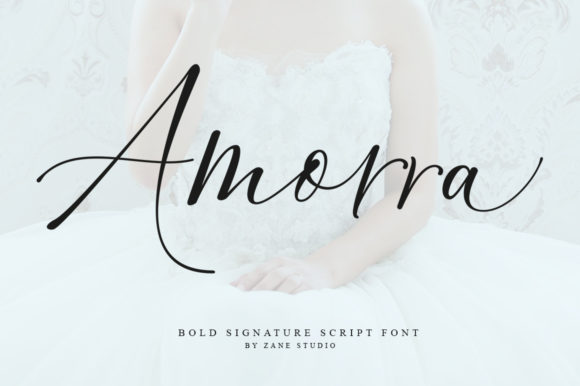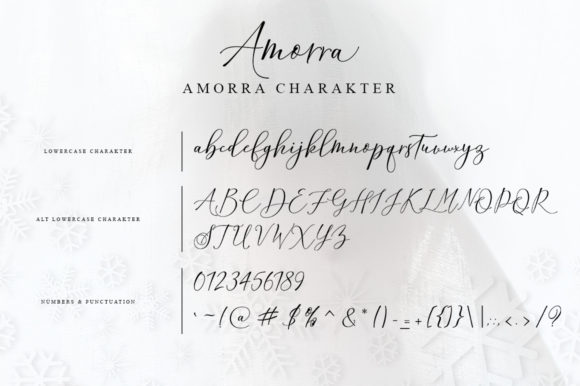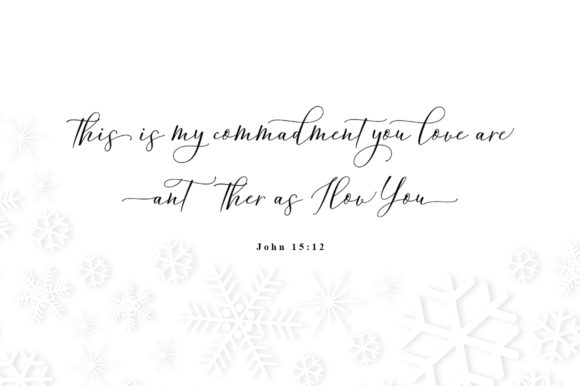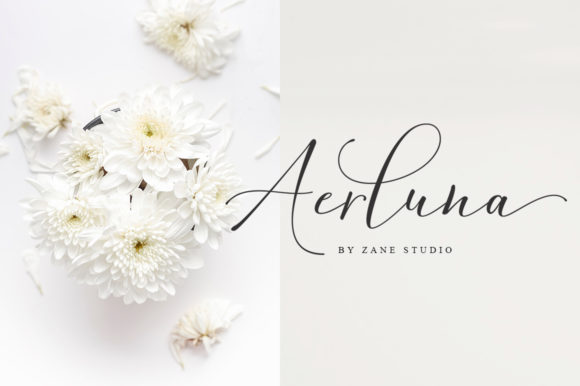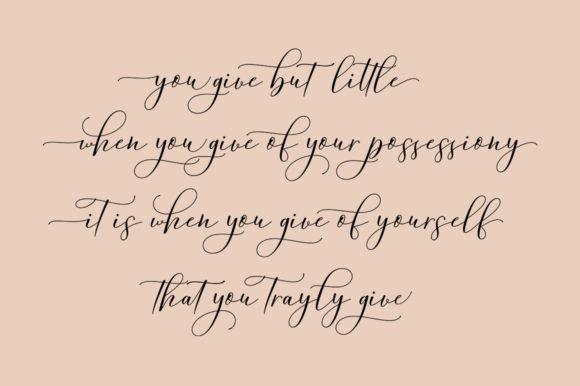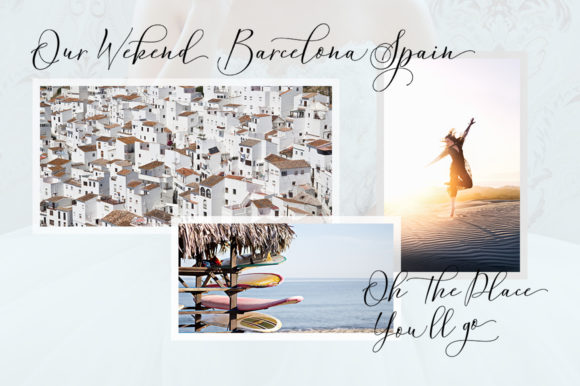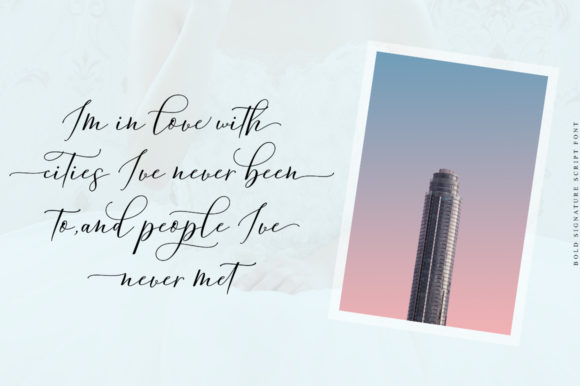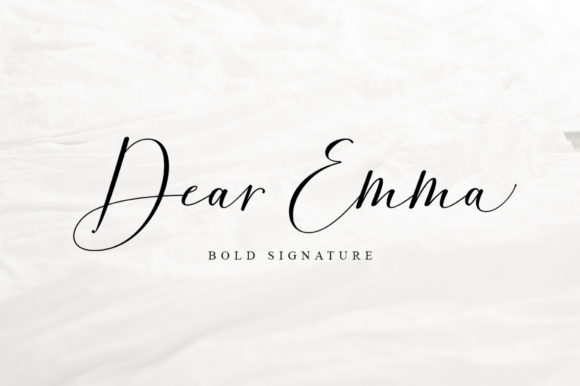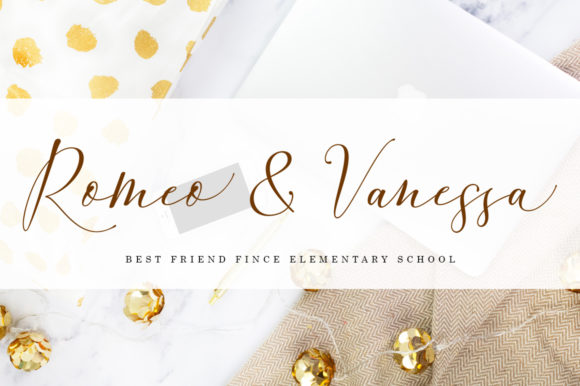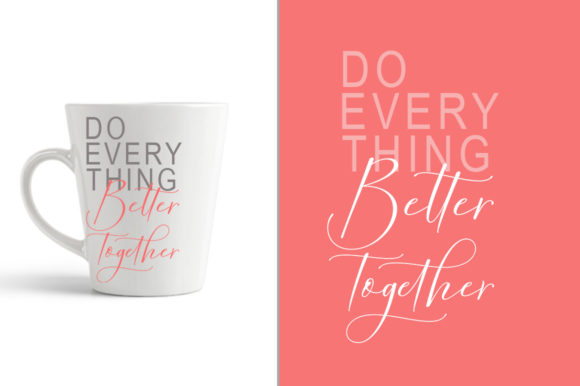
Amorra Script Font
About Amorra Script Font
Amorra Script is a calm and beautiful script font with a bold feel. Use it to add a natural elegance to any design project!